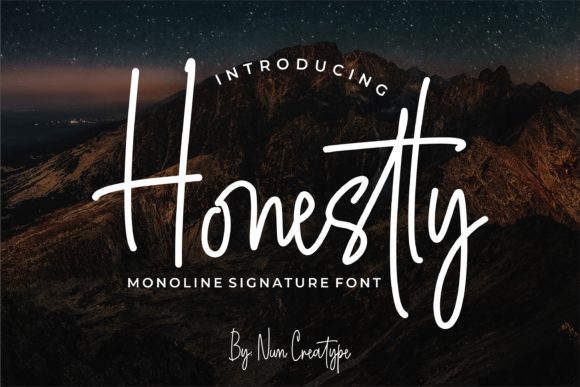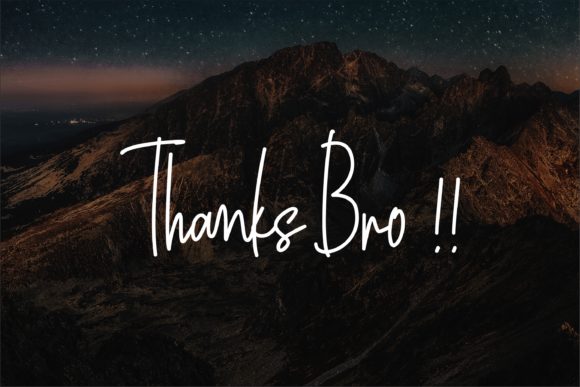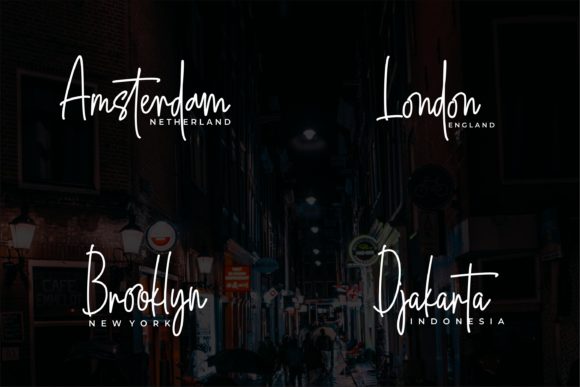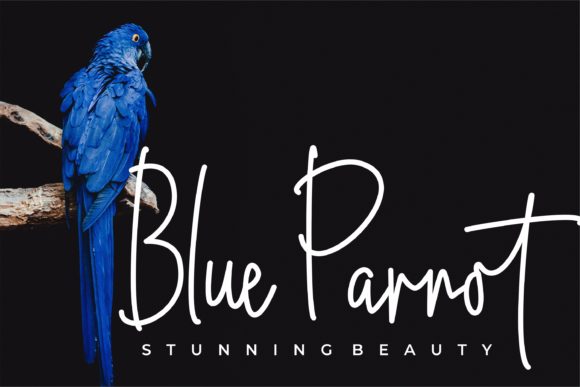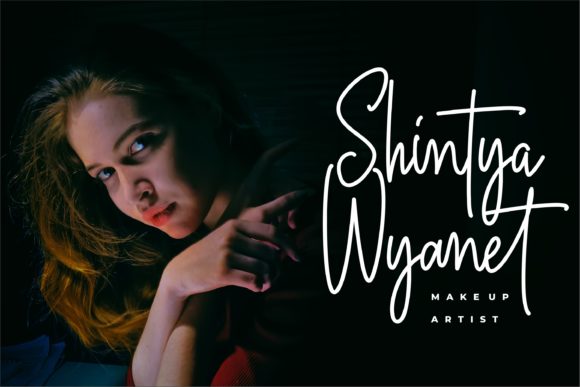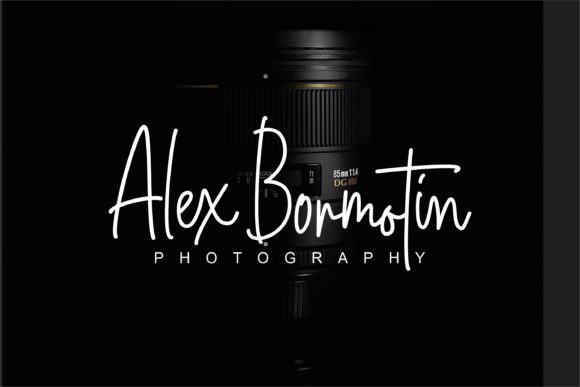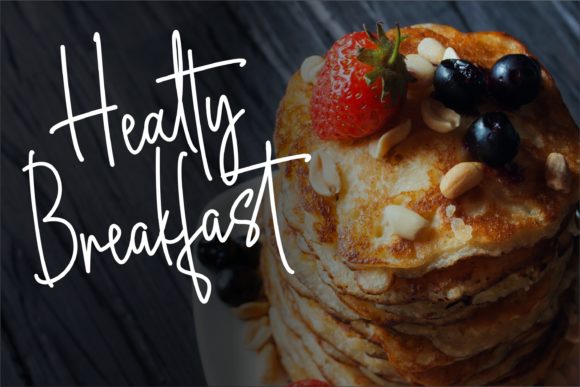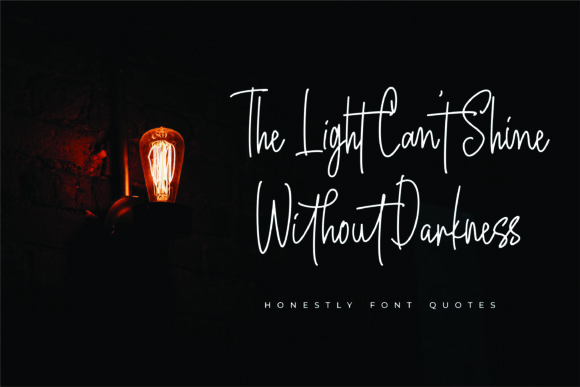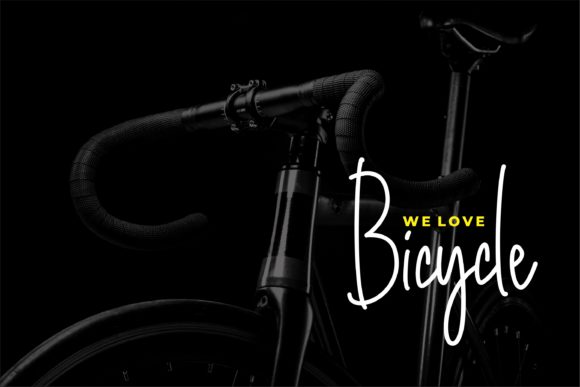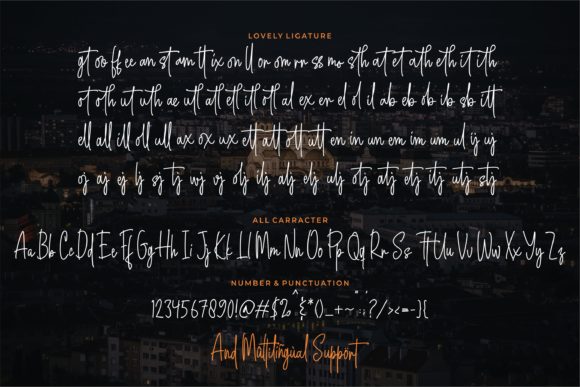
Honestly Font
About Honestly Font
Honestly feels fresh and modern, and is perfect for branding projects, logos, wedding designs, social media posts, advertisements, product packaging, product designs, label, photography, watermark, invitation, stationery and any projects that need handwriting touch.